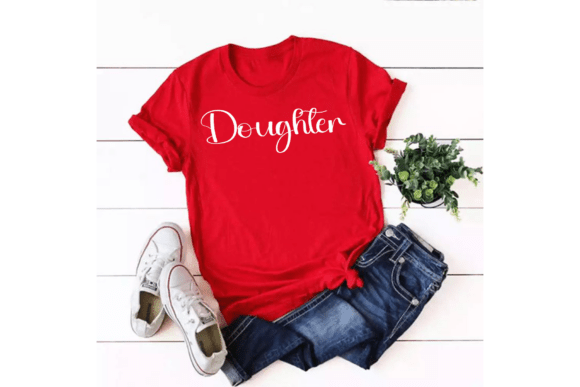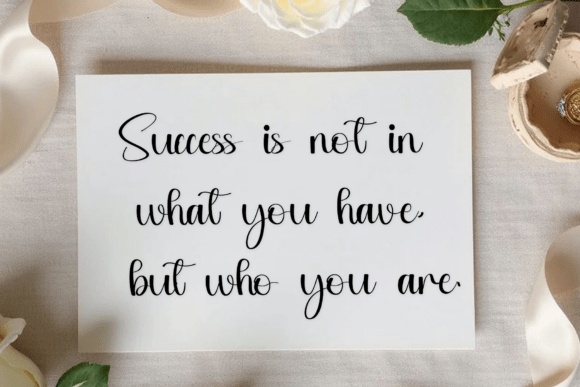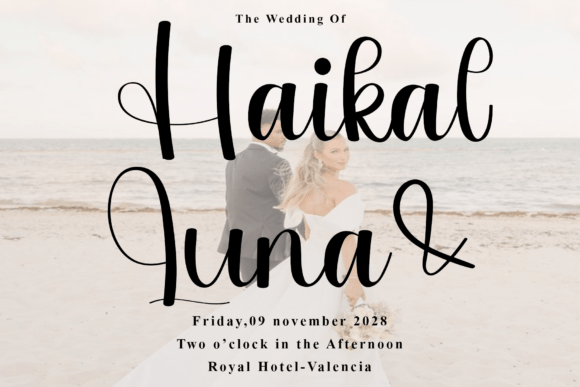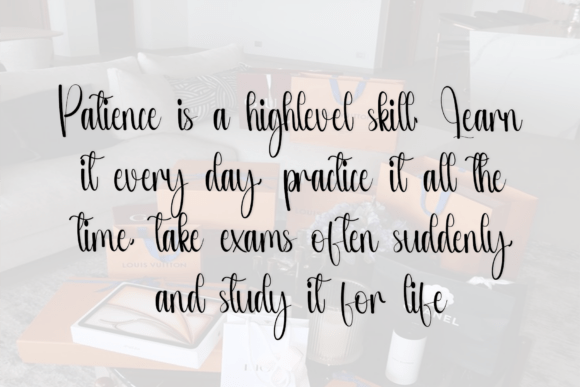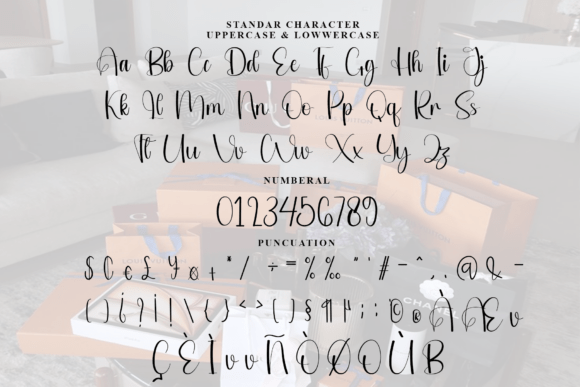
Introduction to Highquality Font
Have you ever been stuck on a creative project, searching for the perfect font to convey your message? I know I have. As designers, we’re constantly on the hunt for that one special font that captures the essence of our brand or idea. And that’s exactly where the Highquality Font comes in – a game-changing, free download that’s sure to elevate your designs.
With its smooth strokes, natural curves, and effortless style, this high-quality font is the ultimate design resource for any creative project. Whether you’re crafting quotes, invitations, or branding materials, the Highquality Font adds a personal and friendly touch that’s impossible to resist. Plus, its versatility makes it perfect for social media posts and presentations, where a clear and charming message is key.
Key Features of Highquality Font
- High-quality design suitable for a wide range of creative projects, from print to digital media
- Designed with attention to detail and care, ensuring a professional finish in any design
Honest Review: Highquality Font
I recently stumbled upon the Highquality Font and was excited to give it a try for my latest design project. As a designer, I’m always on the lookout for high-quality fonts that can elevate my creative work.
Here are some aspects of the Highquality Font that I appreciate:
- ✨ The font is incredibly versatile and can be used for a wide range of design projects, from print materials to digital interfaces.
- ✨ The transparent background option is a game-changer, allowing me to easily customize the font to fit my design needs.
However, I did encounter some limitations with the Highquality Font:
- ⚠️ The font’s legibility can be affected by the size and style of the text, so be mindful of how you’re using it.
- ⚠️ The font may not be suitable for very large or very small text sizes.
Overall, I’m impressed with the Highquality Font and would definitely recommend it as a design resource. With a little care and attention, it can be a fantastic addition to your creative project arsenal.
Tips for Getting the Most Out of Highquality Font
Experiment with different font sizes and styles to achieve the desired effect. Use the font in combination with other design elements to create a unique and creative project. Consider using the font on a transparent background to add depth and visual interest to your design.
The Highquality Font is suitable for a variety of creative projects, including business cards, brochures, and social media graphics. It is also a great resource for designers looking for a free download of a high quality font.